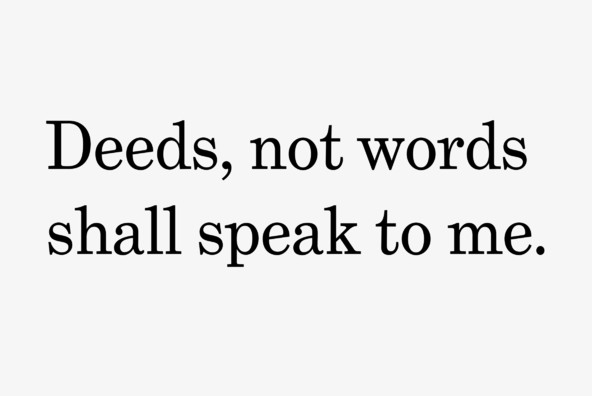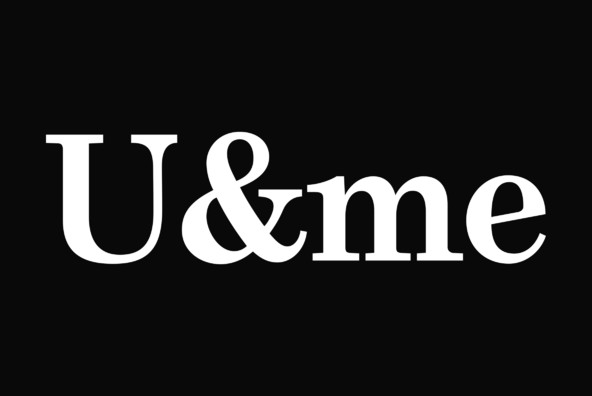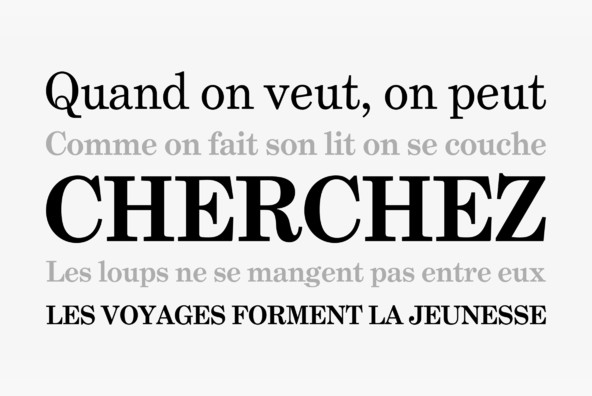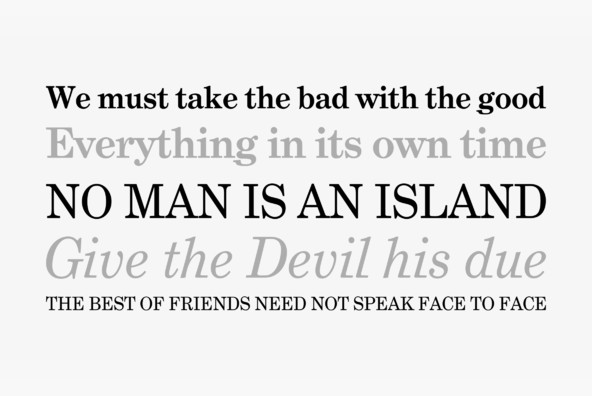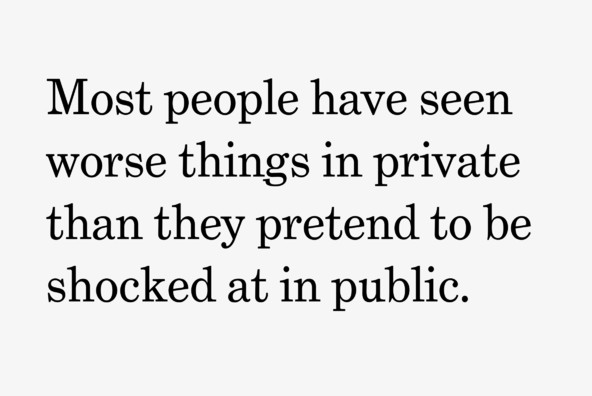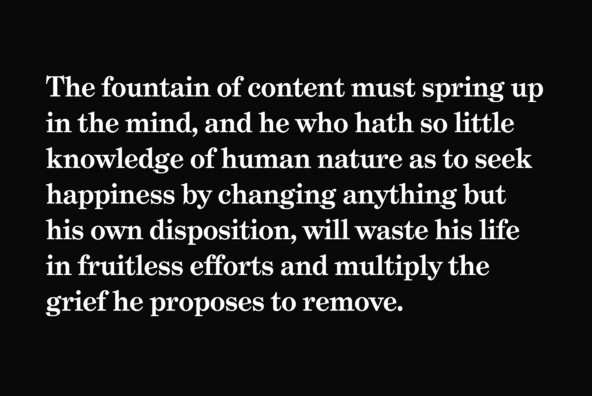
Foundry: Mark Simonson
Phil Martin designed Grad for his personal use around 1990. It is a redesign of the classic Century Schoolboook. Changes both subtle and obvious have been made and many new features have been added such as small caps, old style figures, ligatures, and swash capitals. For ten years, Grad was trapped inside Phil's old DOS computer in an obsolete format. Working from laserprints provided by Phil and specimens of the original ATF Century Schoolbook, Mark Simonson has brought it into the 21st century as a family of three feature-rich OpenType fonts.